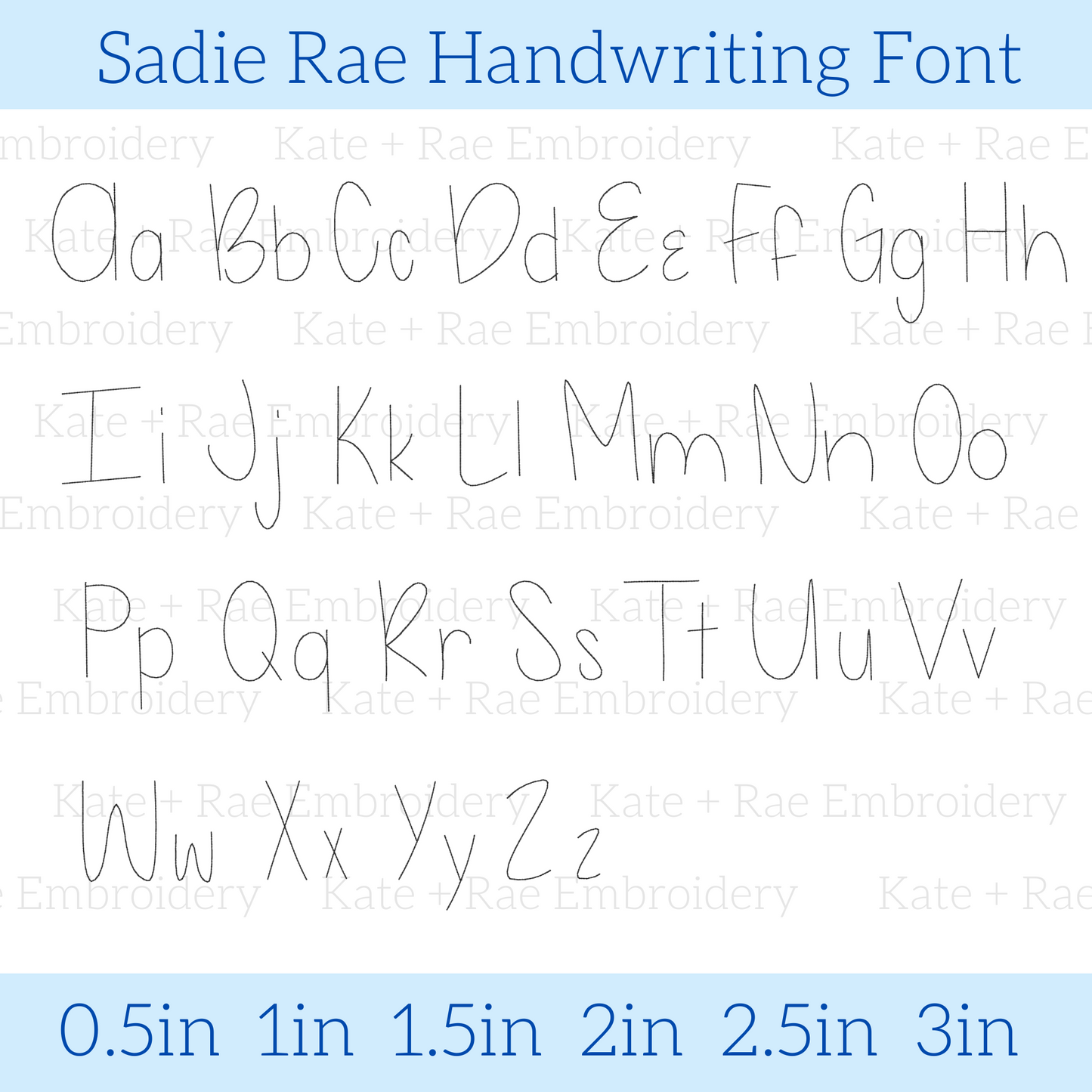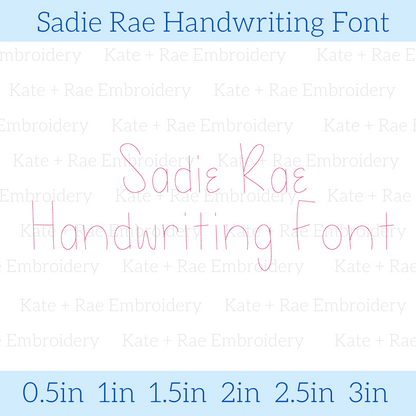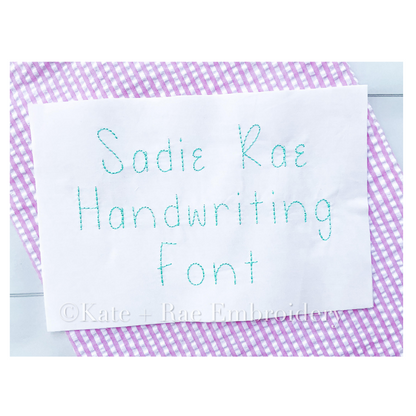
Sadie Rae Handwriting Embroidery Font
Meet Sadie Rae, a handwritten bean stitch embroidery font! Personalize names, sweatshirts, and kids' outfits with a sweet handmade look.